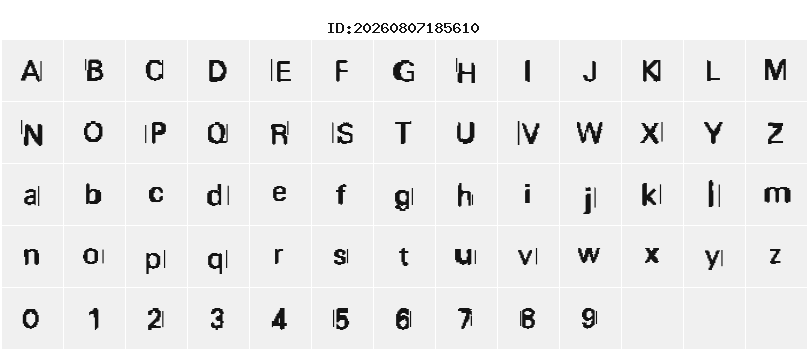
purge Preview
• Font Name: purge
• Font Style: pixil
• Full Font Name: purge
• Designer: xero harrison
About purge.ttf
purge.ttf is a modern, elegant sans-serif font designed for ultimate readability and visual harmony. Perfect for branding, headlines, web design, and print materials.